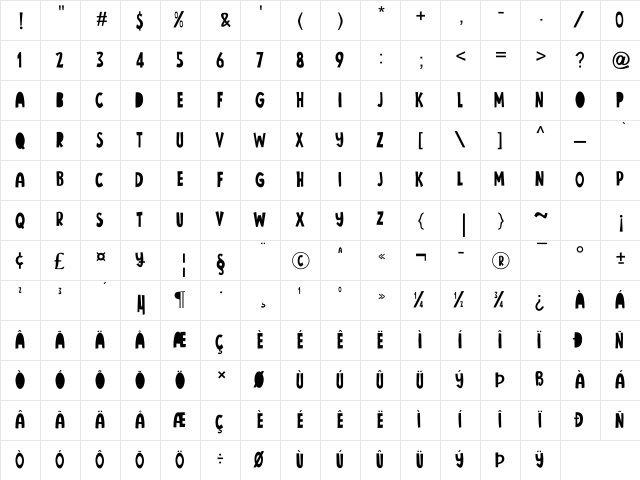
Baylock Regular
| Designer | Kurnia Setyadi |
Design Context for Baylock Typeface
Baylock is a composed and adaptable typeface that performs quietly and consistently across a wide range of design contexts.